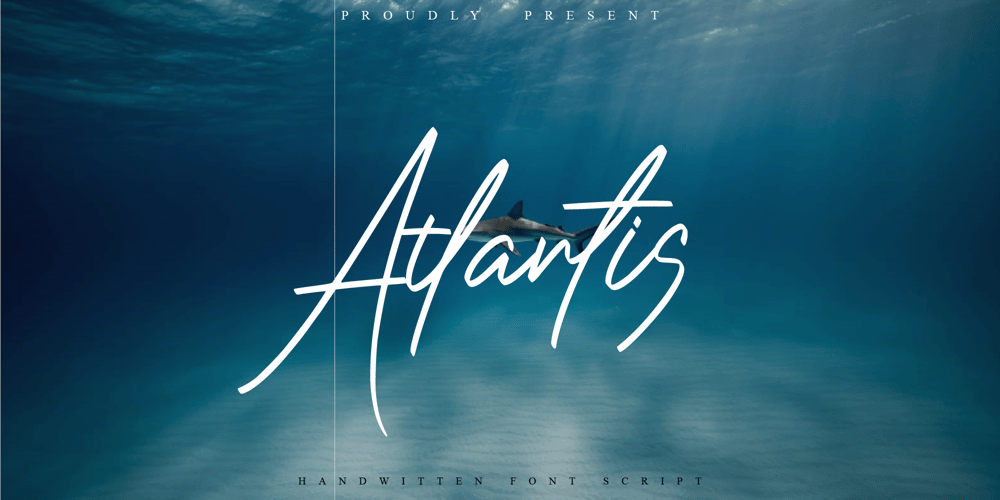
Atlantis Font Family was designed by ryan creative and published by ryan creative. Atlantis contains 1 styles and family package options. Atlantis is a handwritten script style. With hand strokes that make this font look elegant and beautiful. Get every stroke beautiful and precise, with glyphs and open type features with styles and straps, Alternate, and additional Ligatures. It can be used for various purposes. such as, promotion design, main logo design, product design, wedding etc.Atlantis is supported with additional characters that have Alternate and Ligature forms, which will help you achieve beautiful styles with your own creations.Feature; -Uppercase, Lowercase, Foreign Support, Numbers and Punctuation -Alternative, Ligature -Works on PC -Simple installation -Accessible in Adobe Illustrator, Adobe Photoshop. Adobe InDesign, it even works in Microsoft Word -Fully accessible without additional design software.Atlantis is encoded with Unicode PUA, which allows full access to all additional characters without having to design special software. Mac users can use the Font book, and Windows users can use the Character map to view and copy any extra characters to paste into your favorite text editor/app.